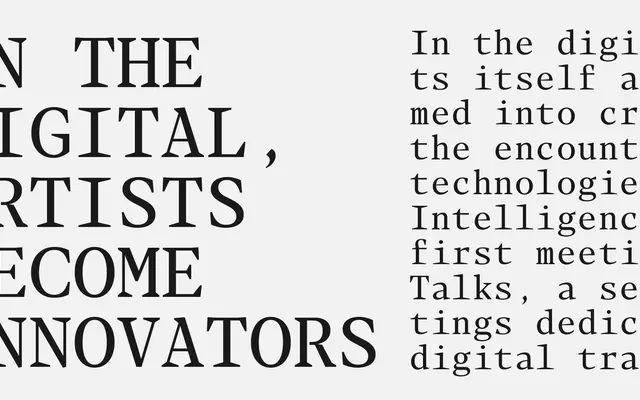
Blacker Mono
Zetafonts · Francesco Canovaro, Cosimo Lorenzo Pancini · 2022
A monospaced serif drawn from the Blacker Pro family, transplanting its sharp 'evil serif' aesthetic into a typewriter-style format with three optical sizes and extreme display weights.
Developed for the 2022 editorial project A Beautiful Mistake by OFFF TLV, it adapts the Blacker Pro letterforms for fixed-width use by modifying only the serifs rather than distorting the underlying skeletons, producing an uneven rhythm unusual in monospaced type. Nine static styles run from Light to Heavy, with two alternate roman cuts and a variable font covering both weight and optical size axes. The full OpenType feature set carries over from Blacker Pro, including small caps, positional numerals and stylistic alternates, making it as well-equipped for complex editorial layouts as for code environments.
A monospaced typeface with pronounced bracketed serifs derived from the Blacker Pro display serif family, sitting firmly in the mono category while retaining strong serif character. Its extreme display weights and optical sizes push it towards editorial rather than purely utilitarian coding use.